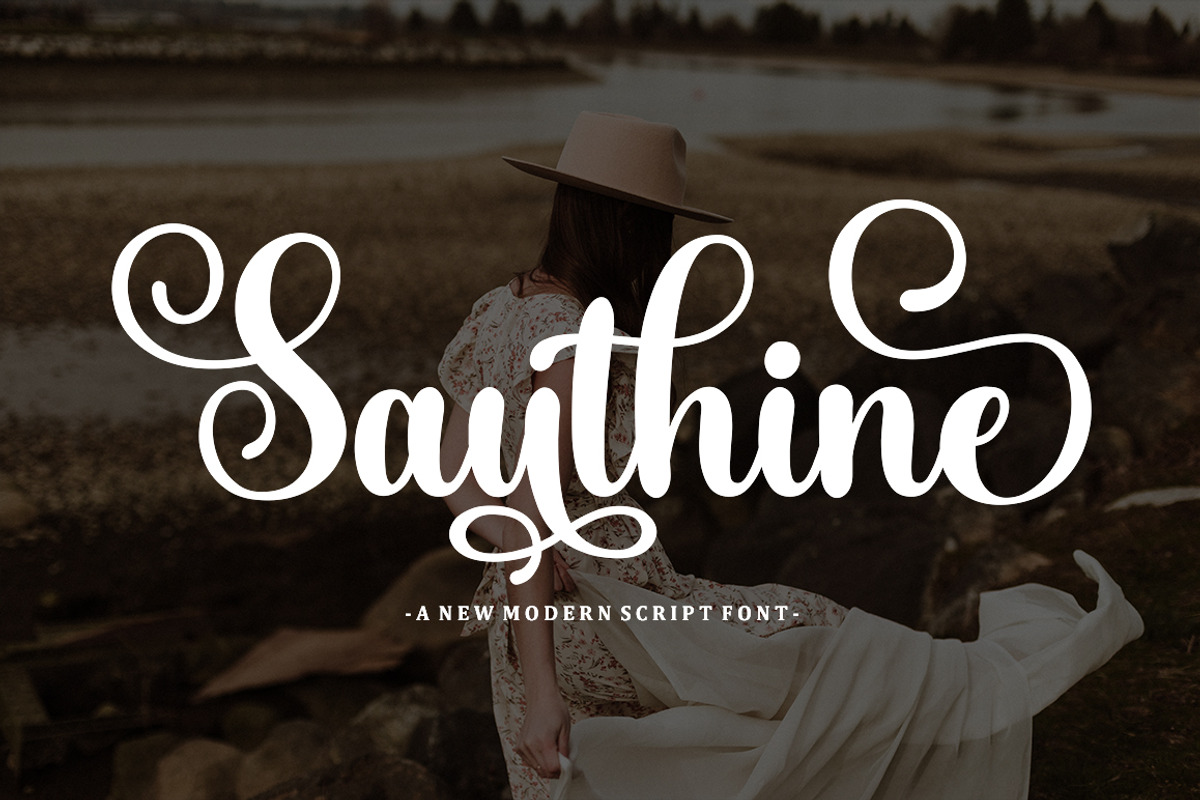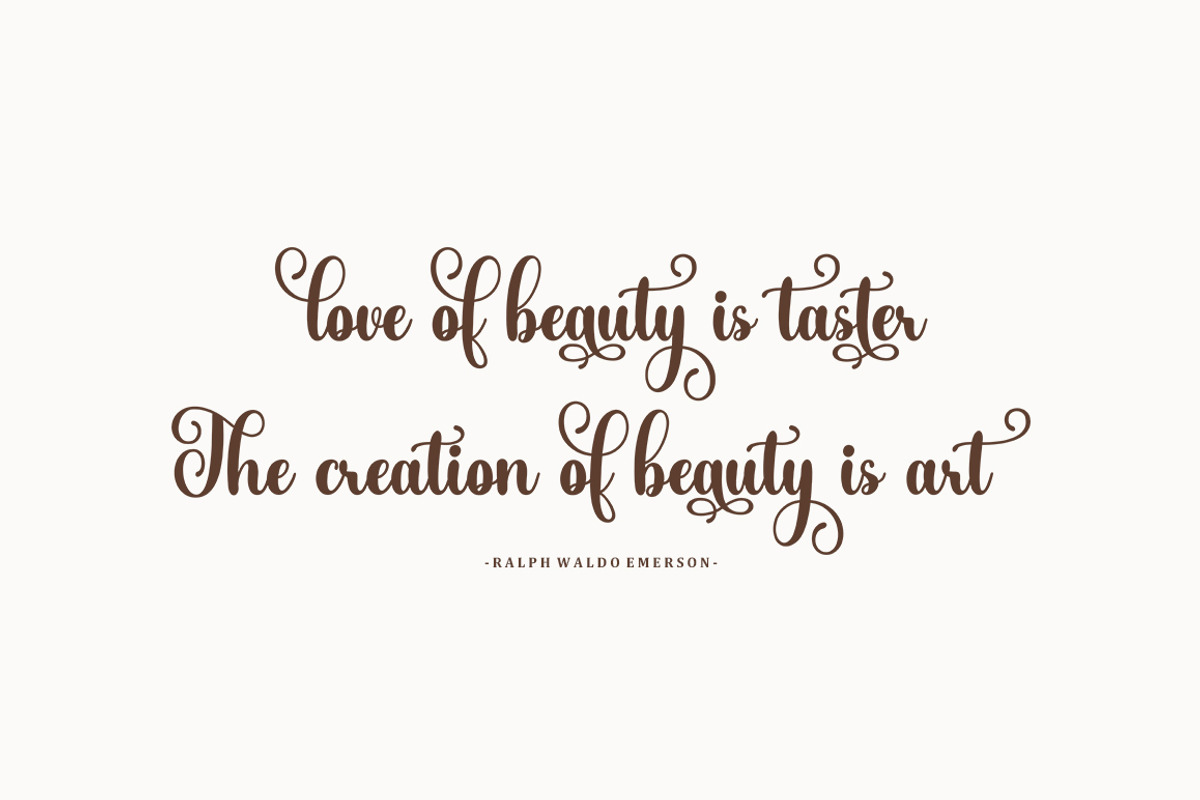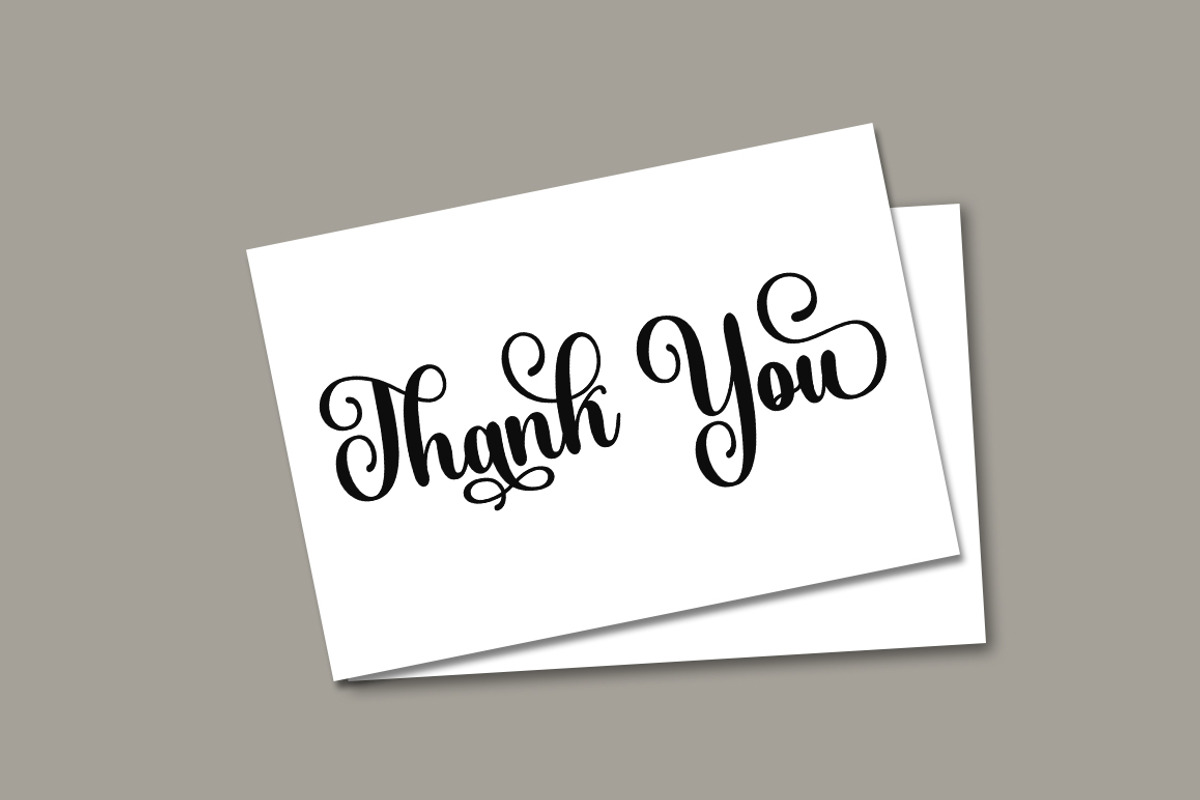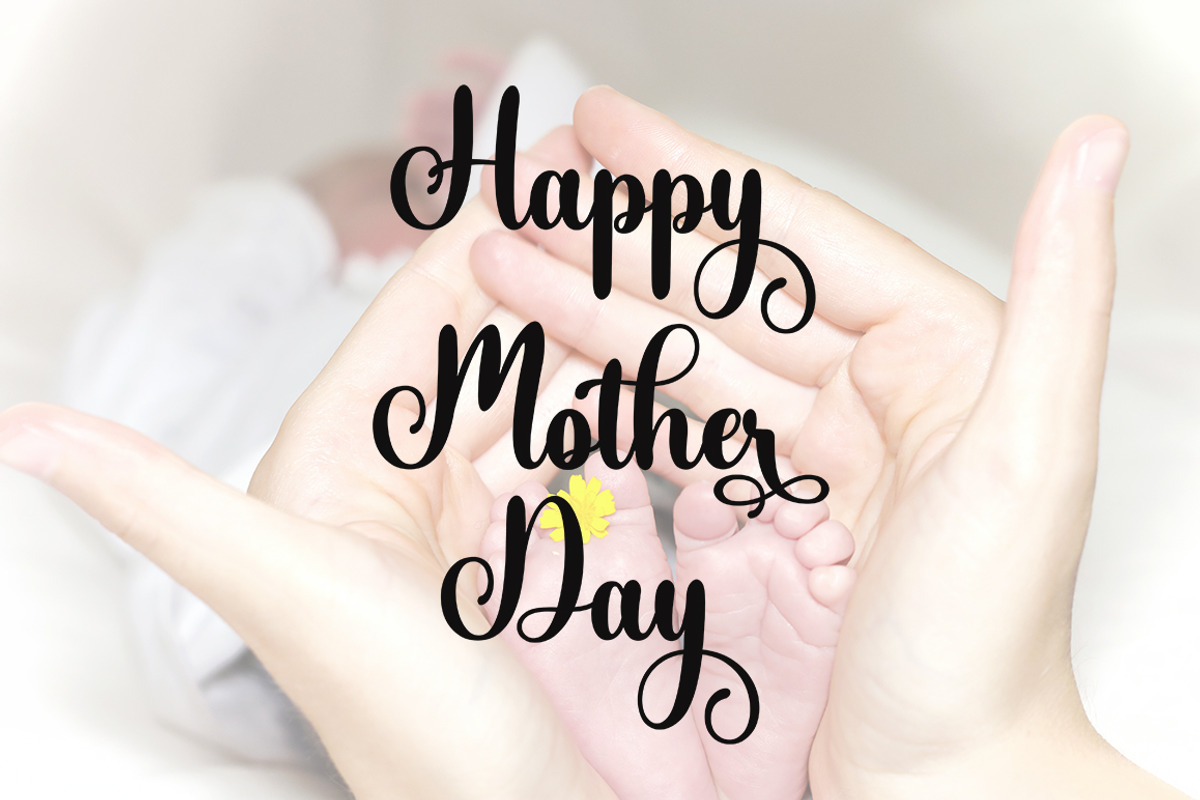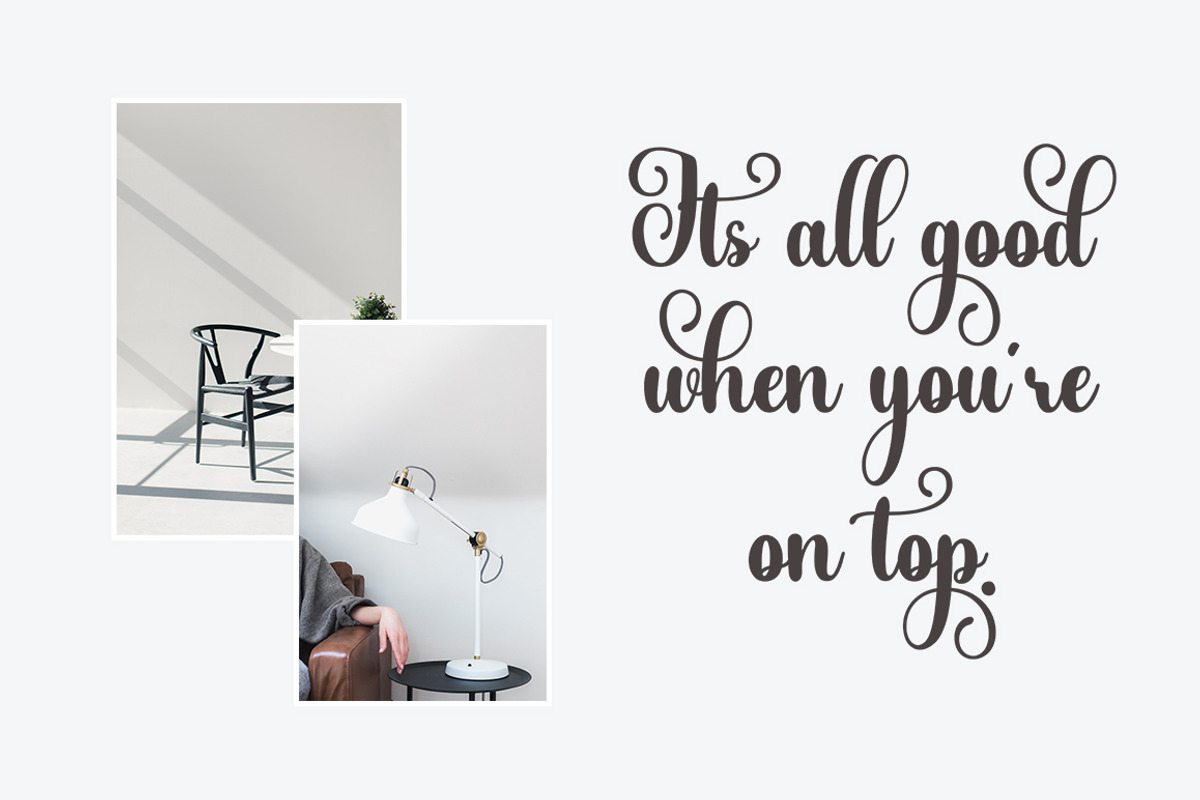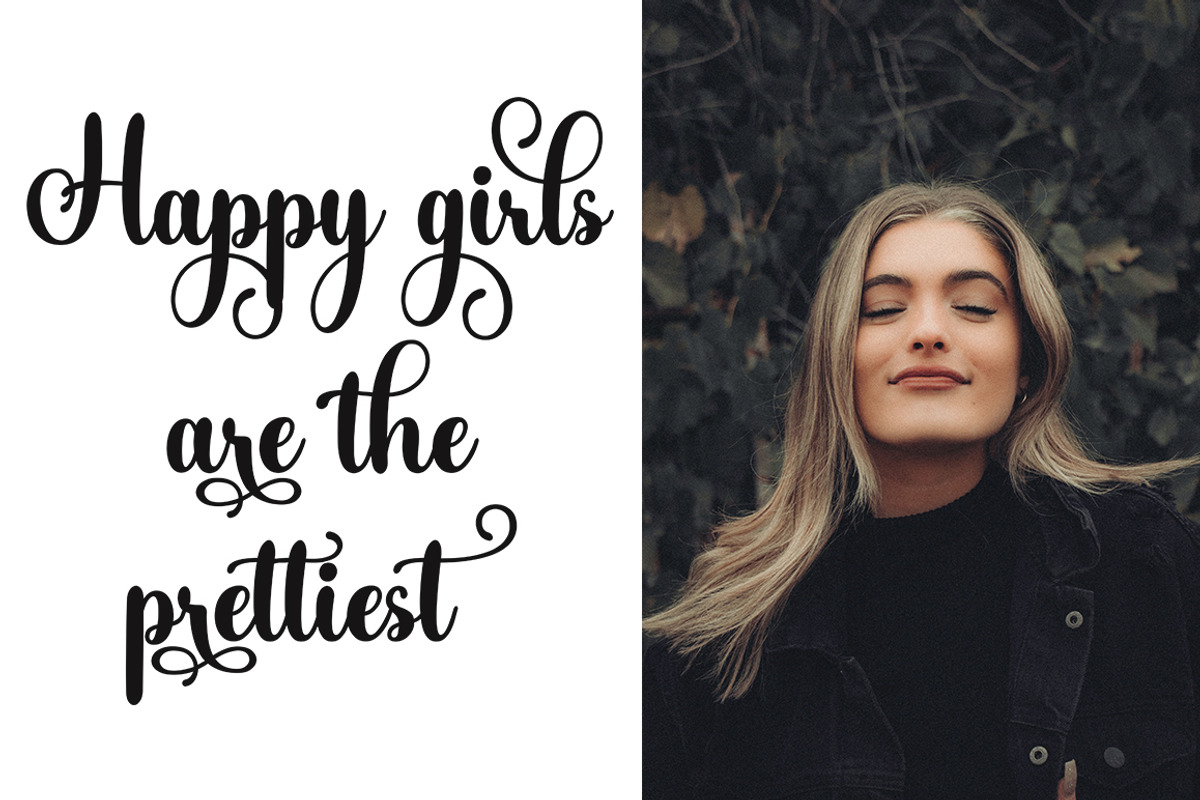
Sauthine
Sauthine Calligraphy. This font was designed by handwriting, and it has a modern and unique forms of calligraphy, the writing style is very natural.
The Features of this fonts is;
Standart ligatures
Contextual Alternates
Stylistic sets